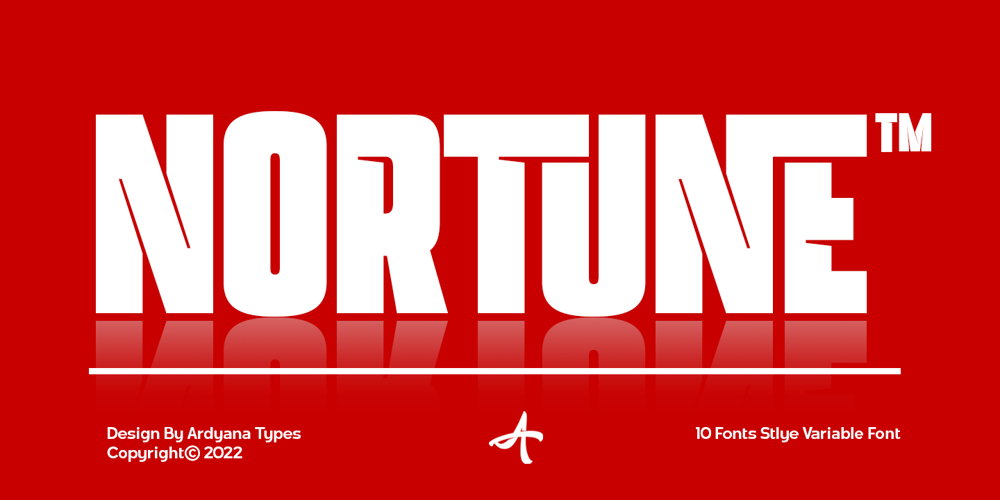
Nortune Font Family was designed by Ardyana Putra and published by Ardyanatypes. Nortune contains 10 styles and family package options. Nortune is inspired by modern style combined with retro style so that it has a dynamic and elegant shape. This will be very suitable for use in any design that has a modern, retro, and classic feel. Nortune also has 10 thicknesses so it will be very easy to use on any design you have in mind. It also comes with multiple languages, making it easy to use for any country and language. Nortune also comes with alternative Ligatures and styles to make your designs more attractive. Alternate fonts will also create lots of options to combine. This modern letter shape will be very suitable to be combined with various types of fonts. Nortune is suitable for branding projects and various design purposes such as business cards, name tags, advertisements, posters, invitations, branding, logos, magazines, merchandise, presentations, etc.Supports languages: Afrikaans, Albanian, Asturian, Asu, Azerbaijani, Basque, Bemba, Bena, Bosnian, Breton, Catalan, Chiga, Colognian, Cornish, Croatian, Czech, Danish, Dutch, Embu, English, Esperanto, Estonian, Faroese, Filipino, Finnish, French, Friulian, Galician, German, Gusii, Hungarian, Icelandic, Igbo, Indonesian, Irish, Italian, Kabuverdianu, Kalaallisut, Kalenjin, Kamba, Kikuyu, Kinyarwanda, Latvian, Lithuanian, Low German, Lower Sorbian, Luo, Luxembourgish, Luyia, Machame, Makhuwa-Meetto, Makonde, Malagasy, Malay, Maltese, Manx, Meru, Morisyen, North Ndebele, Norwegian Bokmål, Norwegian Nynorsk, Nyankole, Oromo, Polish, Portuguese, Quechua, Romanian, Romansh, Rombo, Rundi, Rwa, Samburu, Sango, Sangu, Scottish Gaelic, Sena, Shambala, Shona, Slovak, Slovenian, Soga, Somali, Spanish, Swahili, Swedish, Swiss German, Taita, Teso, Turkish, Turkmen, Upper Sorbian, Vietnamese, Vunjo, Walser, Welsh, Western Frisian, Yoruba, Zulu